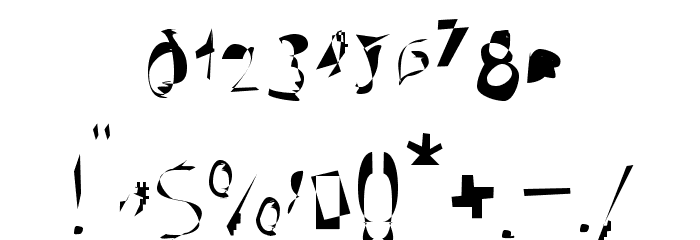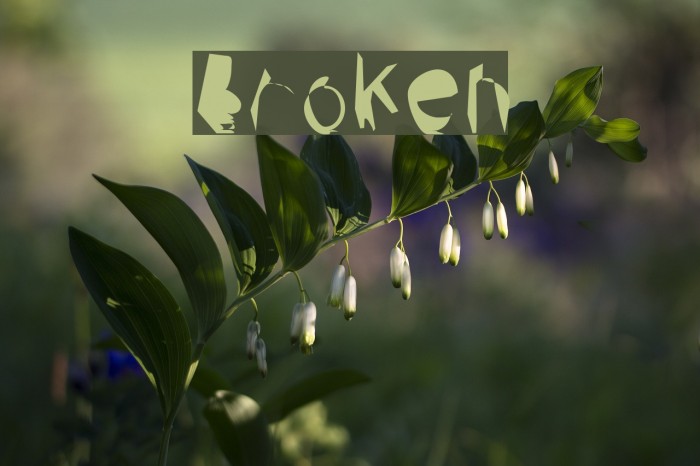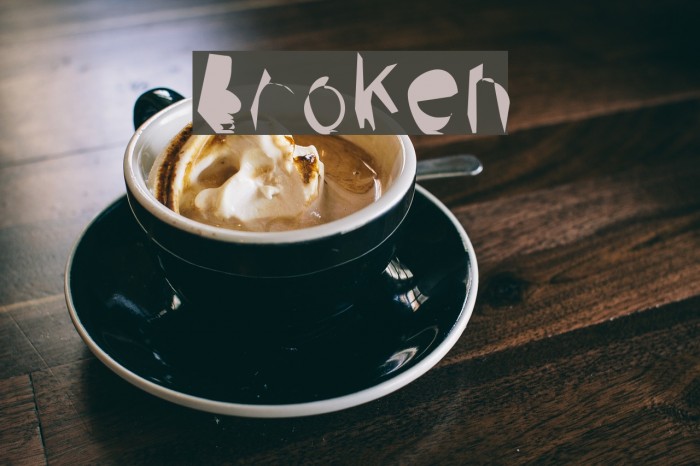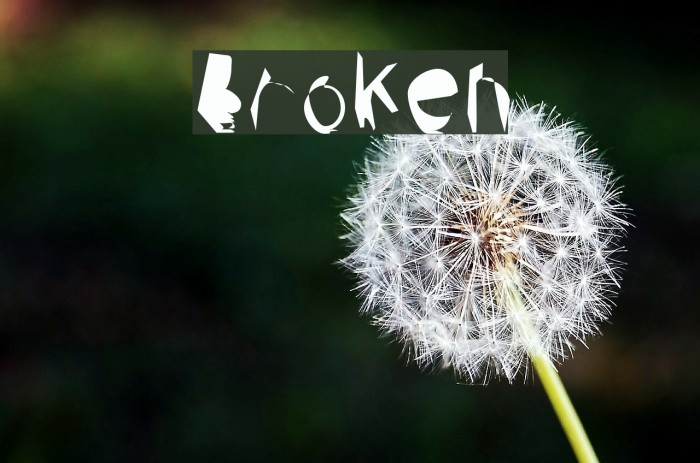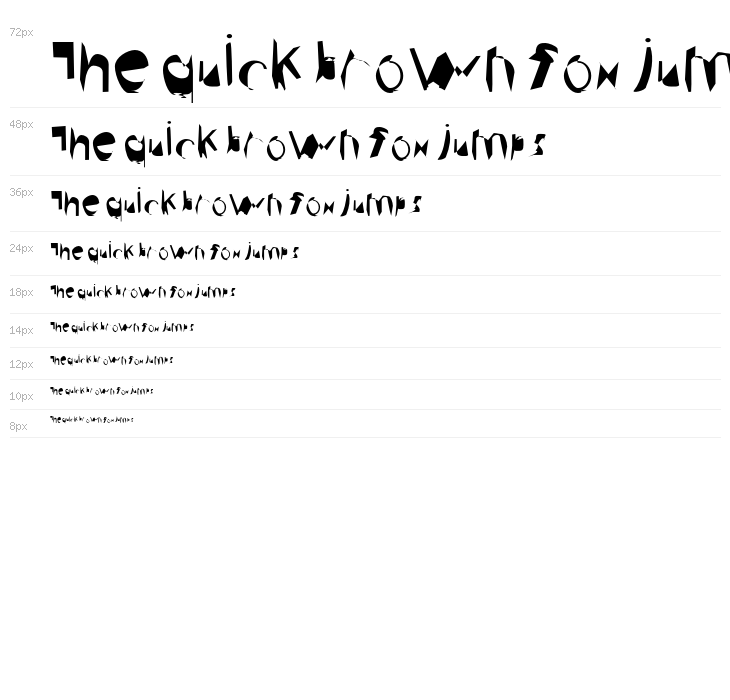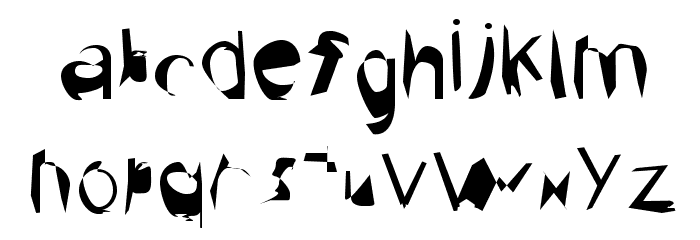
Broken Font
Broken Description
This font features a striking, fragmented design with irregular shapes and sharp angles, creating a chaotic yet artistic appearance. The characters are heavily stylized, with each letter and number appearing as if it has been shattered and reassembled. This gives the font a dynamic and edgy feel, making it stand out in any design. The uppercase and lowercase letters maintain a consistent style, with jagged edges and varying line thicknesses. The numerals and special characters follow the same fragmented aesthetic, ensuring a cohesive look throughout.